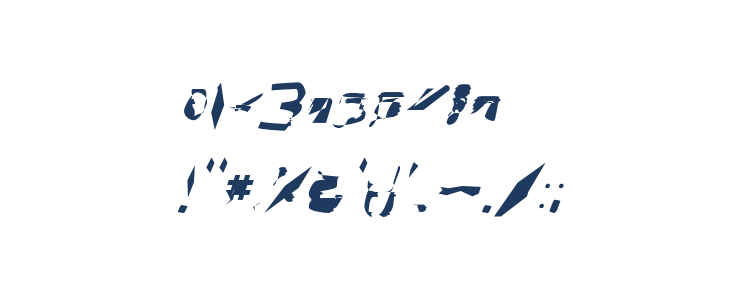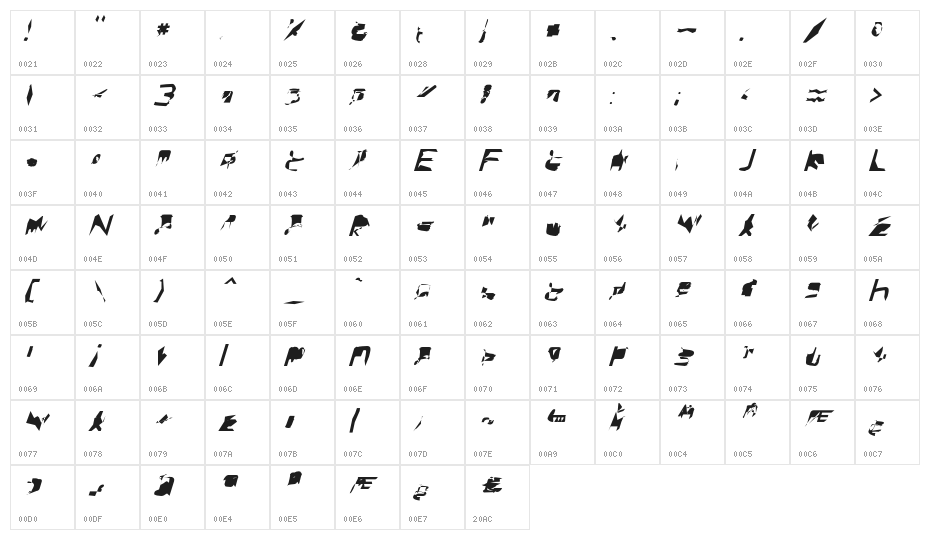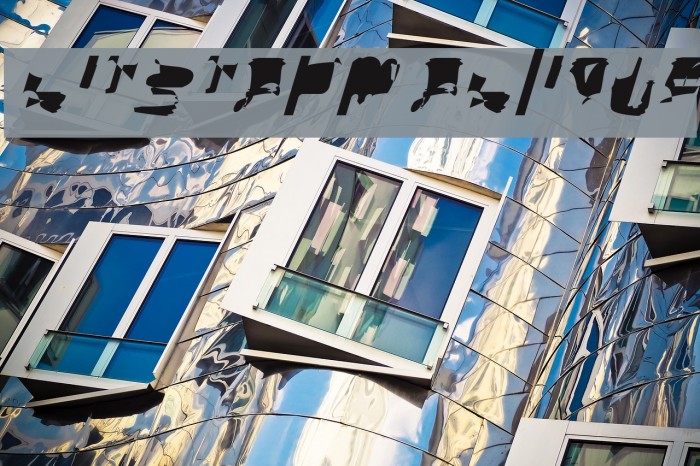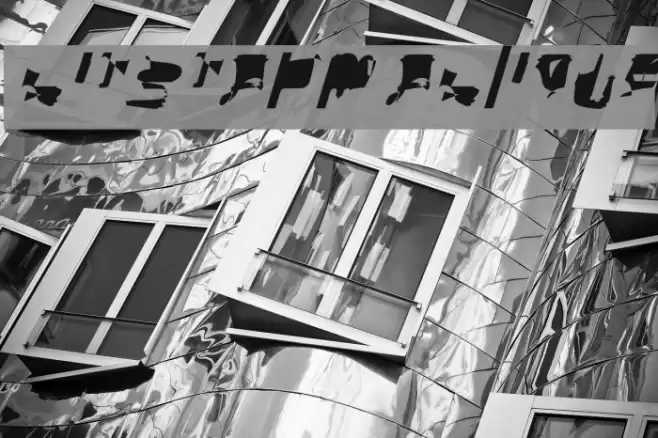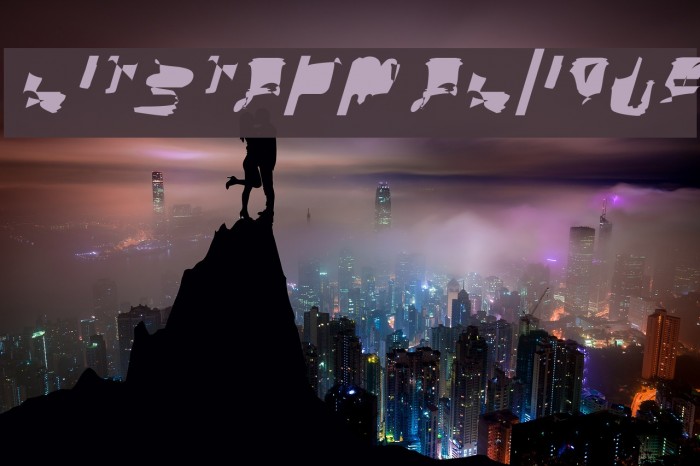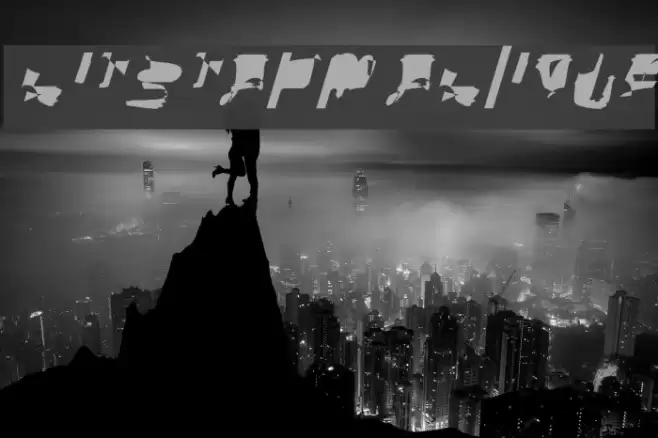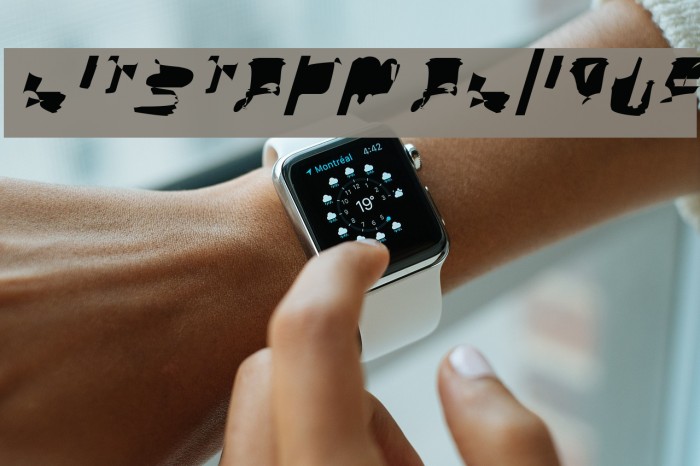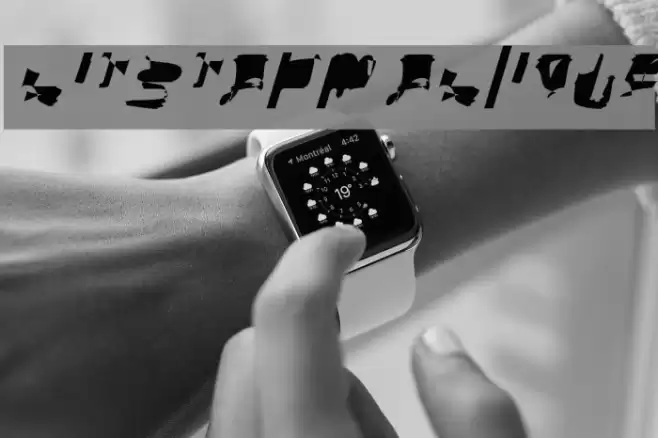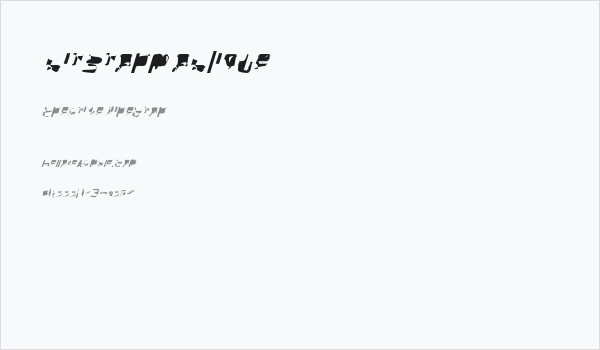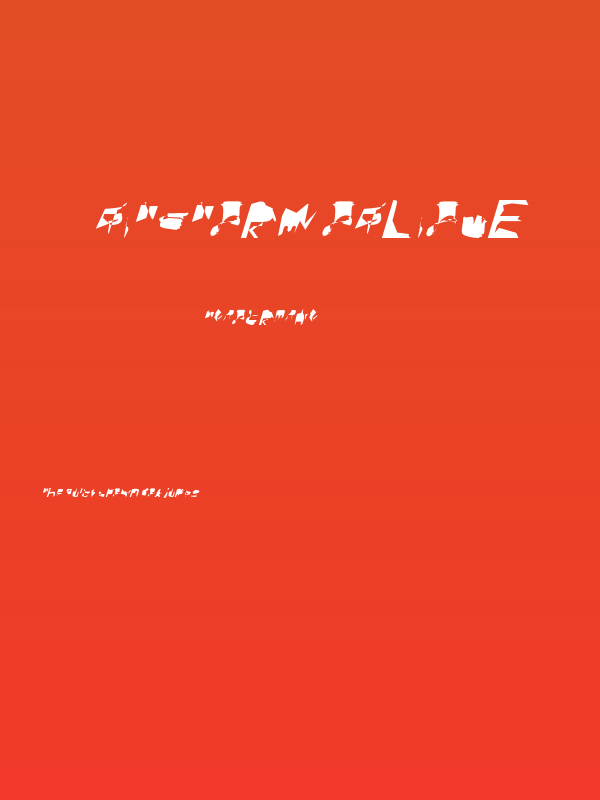
bitstorm oblique Font
bitstorm oblique Description
This font features a highly stylized and fragmented design, characterized by sharp angles and dynamic, broken strokes that create a sense of movement and energy. The letters are heavily distorted, giving an impression of being torn or shattered, which adds a unique, edgy aesthetic. The oblique orientation further enhances the sense of speed and urgency. This font is not suitable for body text due to its complex and abstract nature, but it can make a striking impact in headlines or artistic projects where a bold statement is desired.
| Overall Style | Modern, Edgy |
| Use Case | Headlines, Artistic projects |
| Proposed Projects | Ideal for edgy posters, album covers, or any project needing a bold, artistic statement. |